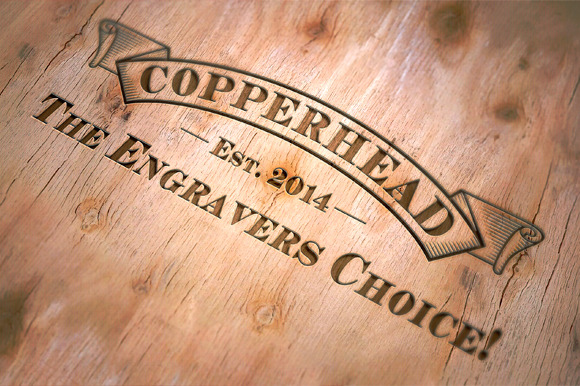
Copperhead Font
About this font family Copperhead is an ‘all caps font’ with thin rounded serifs. This font is specially designed for customers or companies fancying the Goudy’s Copperplate font, though slightly different and restyled. Copperhead is a fine and easy readable font for advertising, logo design and can be used for headliners, all kinds of graphic & typographic work and corporate design also.